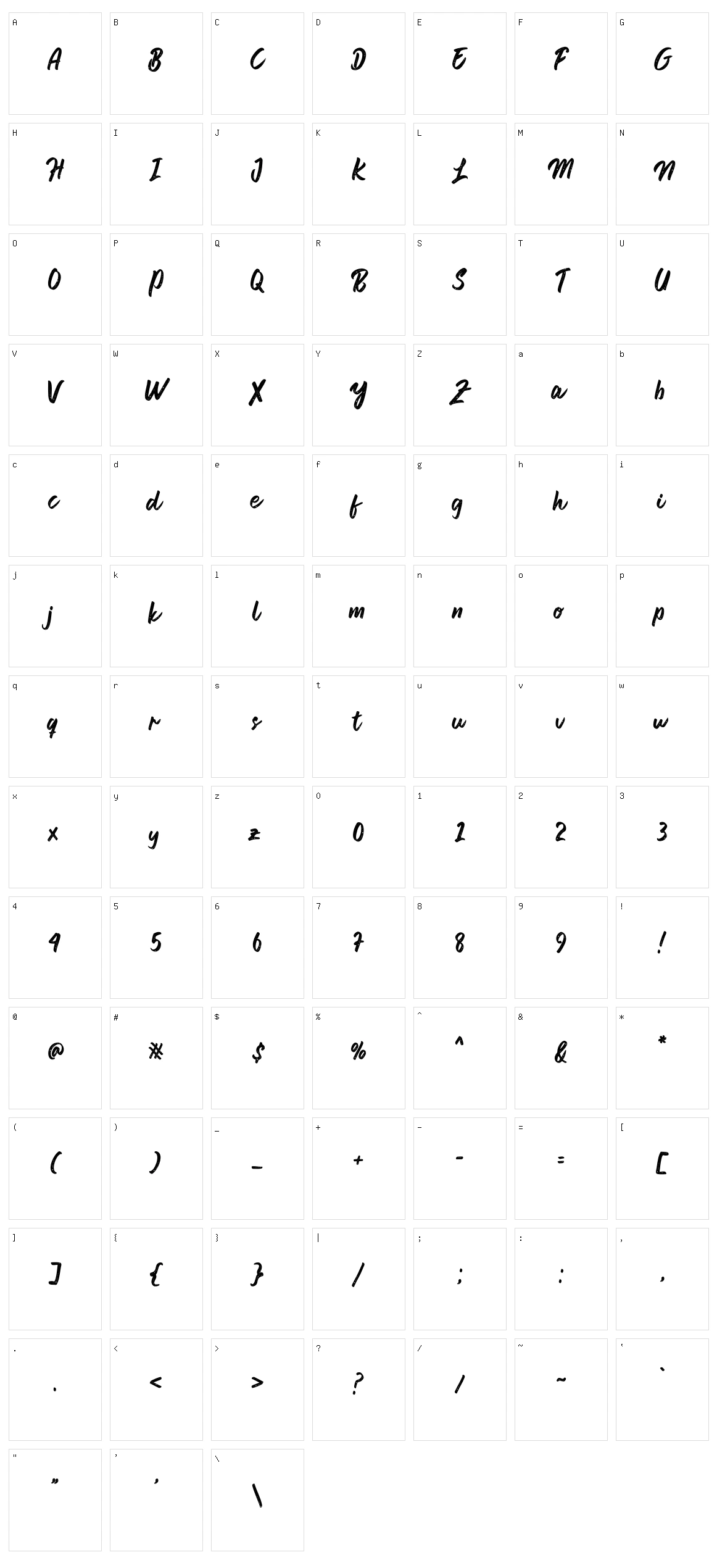
The free font Pahat Script is carefully designed by GFR Creative, showcasing a thoughtful balance of creativity and usability and falls under the Old-School font style. When you download the ZIP file, it contains only 301.1 KB of font files, making it lightweight and quick to download. Please review the license details below to understand permitted usage and distribution rights. If license information is not available, we recommend using this font for personal projects only or contacting the author directly for commercial usage permissions.